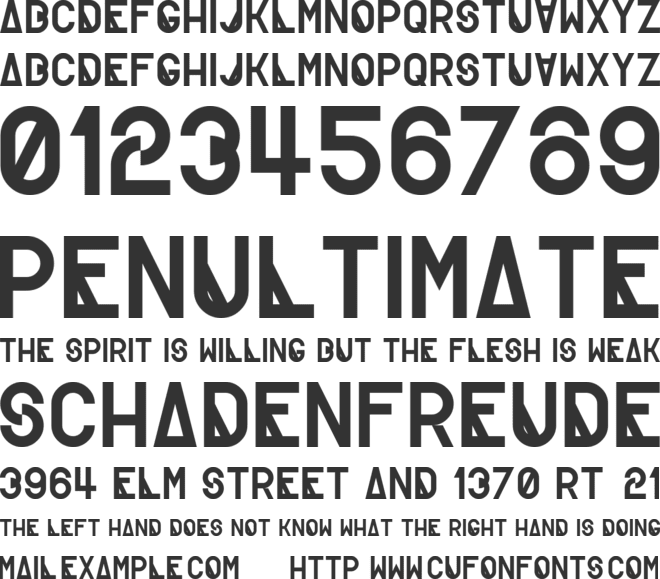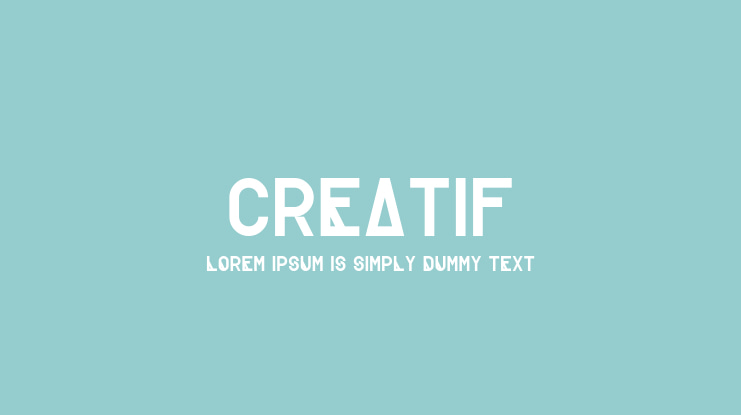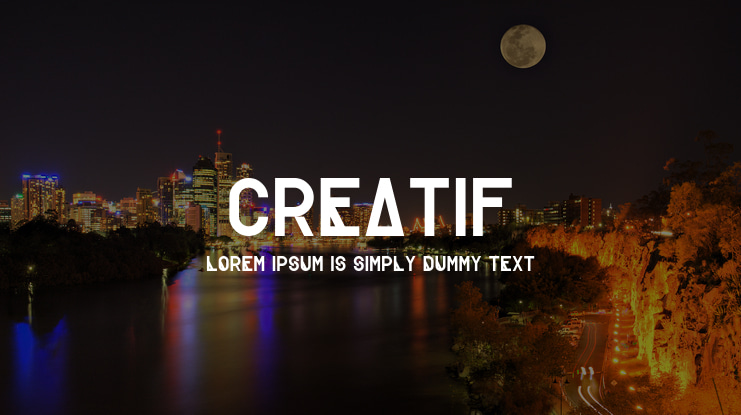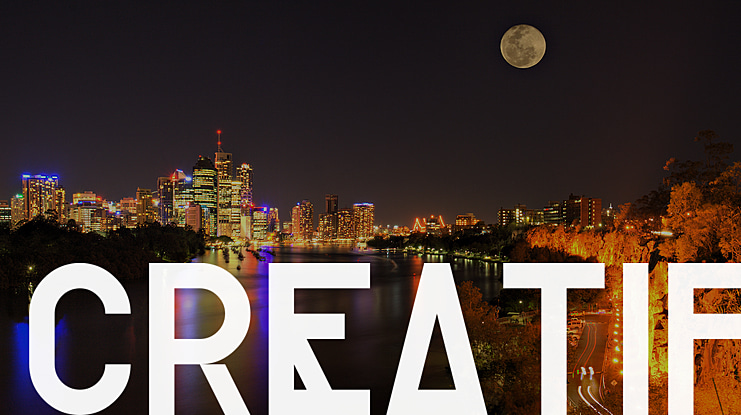
Creatif Font
Creatif is a modernist sans serif font featuring thick gothic curves and several interesting design decisions. Creatif was developed for use in modern street wear.